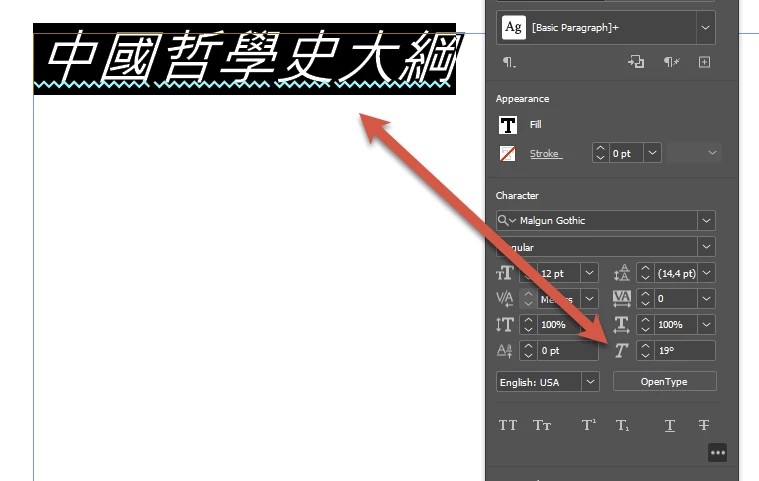
CJK fonts missing Italic - client drive me crazy
I am working on many projects with InDesign, Illustrator, and Photoshop. Recently, I received a couple of documents that have been translated into several languages, including Chinese, Korean, and Japanese. The agency I am working for rejected the documents translated into Chinese and Korean for missing italics.  No matter how much I tried to explain that Chinese and Korean fonts do not have Italic, they are insisting on fixing them and constantly comparing the InDesign text with the MS Word text.
Since I am not tech-savvy, I have no clue why MS Word adds italics to the same Chinese and/or Korean font.
As I searched Adobe Fonts for Chinese and Korean fonts that might have Italic, I found none.
Any idea how to fix it? Is there any way around other source fonts from where I can buy/download Chinese and Korean fonts that have Italic? Why can MS Word make a font Italic while in InDesign the same font does not show Italic as an option?
Basically, Word adds a slant to fonts, when there is no real italic available. They also add a faux bold, if no bold is available. That means that you can have a Thin font, and make that bold! 😉
One question that is important to ask is who did the translation?
I once had the situation, that a girl setting up a Chinese brochure for me replaced all the sentence points with Latin points because “she did not like those hollow points”. My Chinese partner explained to her that that is needed as such in Chinese.
This said, if they insist, you can always use the slant parameter. You will need to create a character style or paragraph style to do this consistently:
You will have the text exactly like with the Word italic…
What MS Word is doing is just distorting the characters – it will do that with any font no matter the writing system. Try Arabic! 🙂
A good visual explanation of this is availabe in this article by Toshi Omagari:
Finally, some Japanese fonts provide Italic _Latin_ characters via the `ital` OpenType feature. However, this does not apply to the ideographic characters.